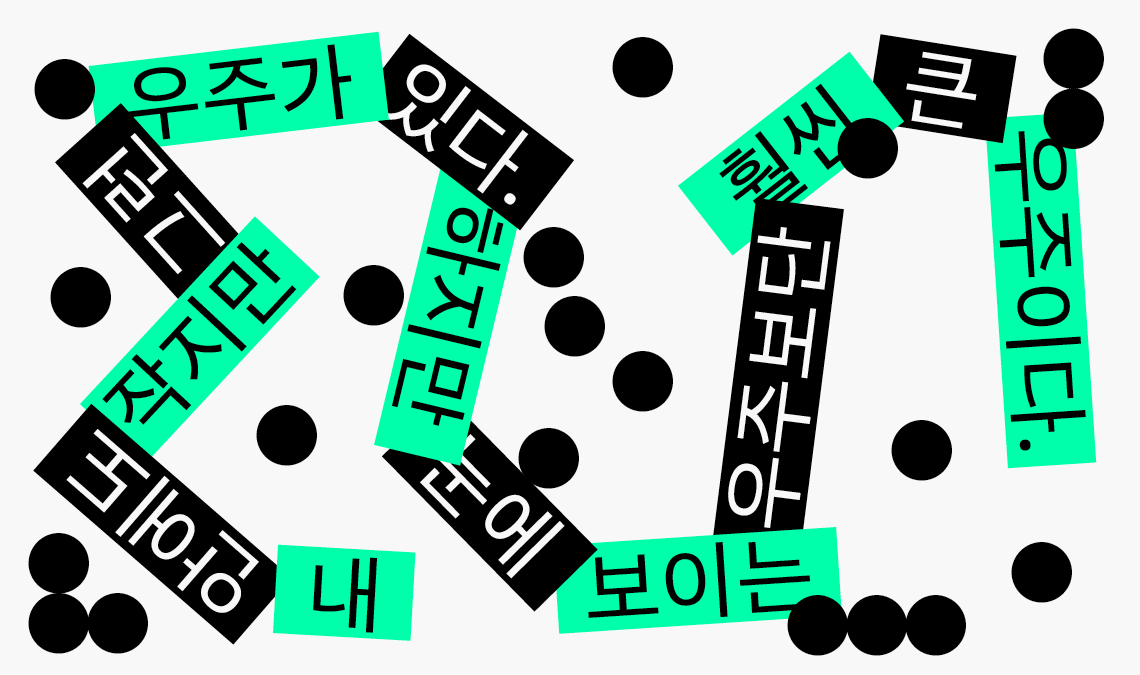
Enjoying the Journey: Interview with Chorong Kim
Adelle Sans Korean is the 12th script released in the Adelle Sans superfamily. In this interview, Chorong Kim discusses what it took to create it and how it’s best used.
TypeTogether has recently released a new contribution to the Adelle Sans family, Adelle Sans Korean. We had the opportunity to talk to the designer behind the project, Chorong Kim of the Korean type foundry Sandoll. We discussed her personal approach to designing Hangul alphabets, the importance of taking cultural context into account when harmonising different scripts, as well as “the sunset-coloured letters in white fluffy clouds”.
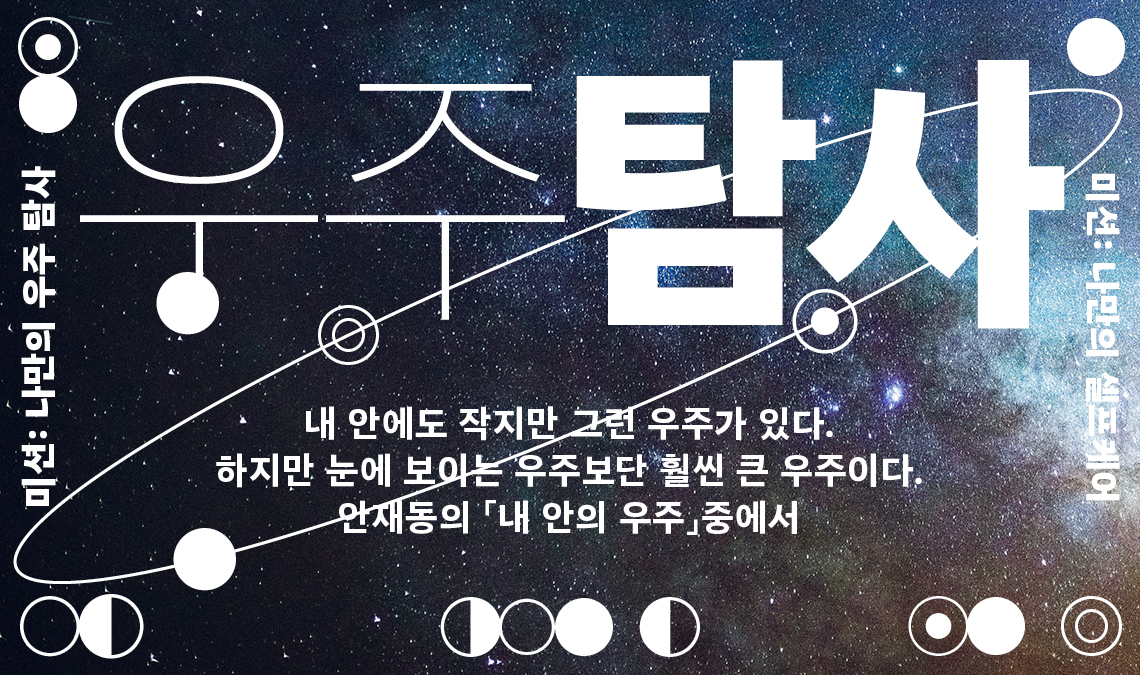
Could you tell us more about your journey to type design?
When I was studying visual design in Korea, I was really bad at typography. One of my professors even said I was not really cut out for it. However, while studying in France in a foreign language other than my native tongue, I became increasingly interested in Latin typography and font design. Learning French was tough for me, but it made me look into Latin type design seriously and my interest increased, thanks to Thomas Huot-Marchand. If I hadn’t met him, I might be doing something else by now.
How did you come to work on Adelle Sans Korean?
At the time the discussion about Adelle Sans Hangul was starting between Sandoll and TypeTogether, we were already developing another Hangul font for our retail library. We thought, since it wasn’t too far along, it could be modified and made into Adelle Sans Korean. It’s a kind of customisation, but rather than customising a font that was already released, we changed one that was in the beginning process of being designed. I was in charge of the project at the time, and since I had met Veronika Burian and José Scaglione before at international conferences, it was a natural fit.
Could you briefly describe the process of designing Hangul to match an existing Latin typeface?
First, we need to study the existing Latin font family. We explore how and why they were created, their design concepts, and their visual characteristics and details as well. Then we establish the most important values from this study in a variety of cultural and social contexts of Hangul. And we decide the process for how we can apply those values to the Hangul font.
In the font creation phase, we’re designing for visual harmony — shape, size, weight, and positioning — to make sure it works with the Latin. However, based solely on visual considerations, users from different scripts may have very different impressions. Therefore, we need to check for both visual and cultural contexts.
Is there any particular detail that, if not harmonised, the whole family would not work together?
While specific details are important, I think the overall impression is the most crucial. For example, physical size and position, stroke thickness and contrast, and spatial homogeneity should be considered first, and only then should expressive details be considered. No matter how well certain small details work together, if the former conditions are not in harmony, I think it is more likely that the result won’t look like a good match.
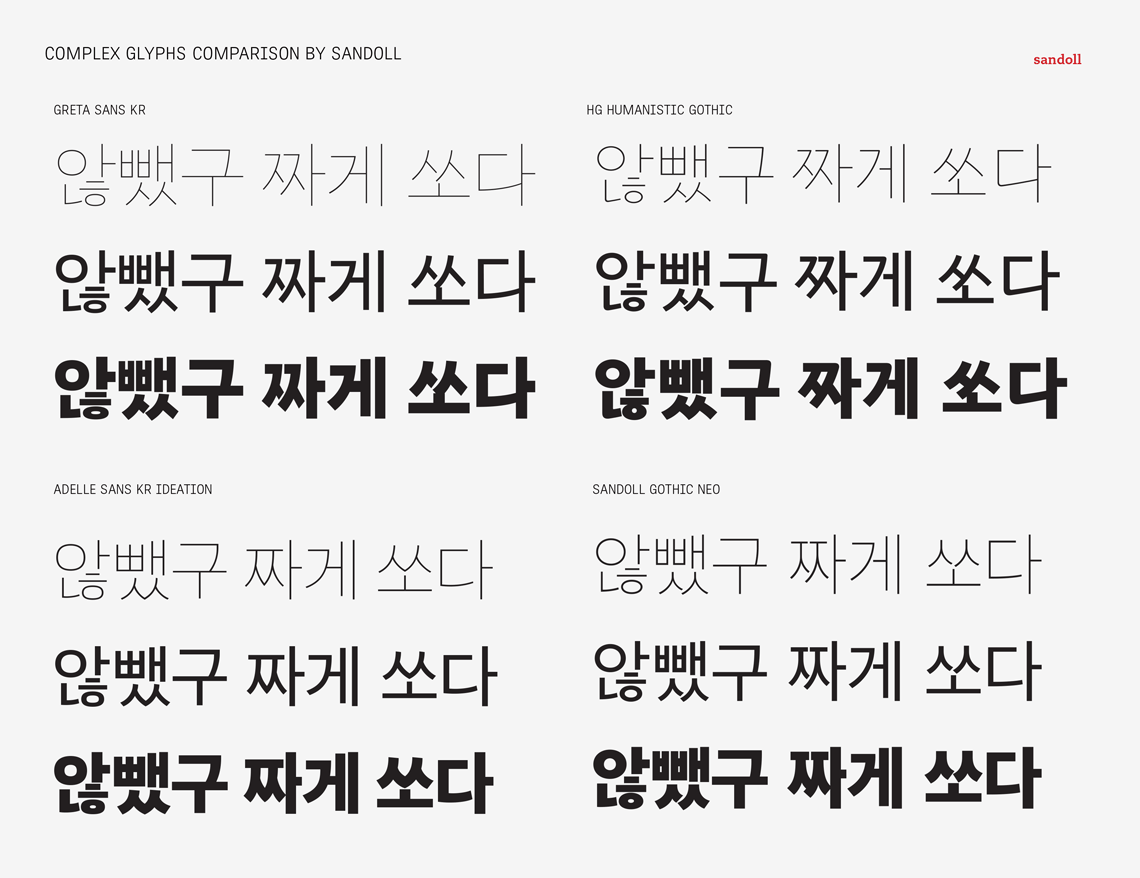
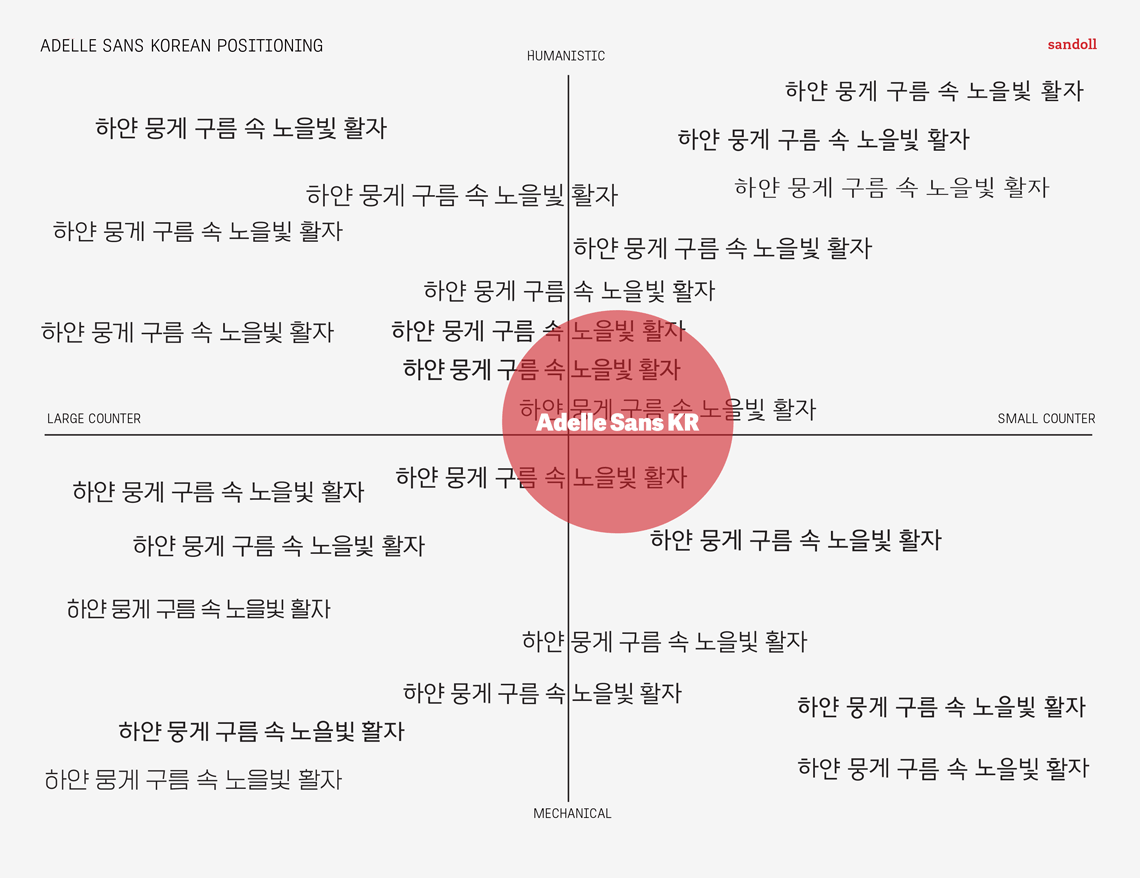
Was the work on Adelle Sans Korean specific in any of these aspects?
While it was important to harmonise the Korean with the features of the original Latin design, the Korean design concept should work for Hangul all on its own. So we first thought about the keywords of Adelle Sans Latin and applied them to the Hangul context. We also created a positioning map to determine how it would work in the Hangul font market. Based on the result, we created Hangul ideation samples and then tuned the visual details to make it work with Latin.
When designing Hangul, do you personally have any character or detail you like to start with? Are there even any general rules specific for Korean type design?
It’s hard to say that there is a such thing that we can call ‘standard’ in the industry, but Sandoll has a set of letters we use to start our work. They are ‘하얀 뭉게 구름 속 노을빛 활자’ which means ‘the sunset-coloured letters in white fluffy clouds’. It has all six combination styles of the Hangul letters, a good mix of 2-3 letter words, and general spacing to give the basic feel of the typeface. With these letters, we can define the skeleton of letters and the combination rule. This string also contains letters with several basic graphemes, so it helps when checking some design details as well.
What use is Adelle Sans Korean meant for? Where does it fit the best?
Overall, Adelle Sans Korean maintains the readability and impression of a Hangul Gothic font that people generally use for the text, so it’s familiar to the native reader. At the same time, the unobtrusive and subtle features reflected in certain characters create a different atmosphere from the traditional ones. The structure of Siot(ㅅ), Jiut(ㅈ), and Chiut(ㅊ) especially reflects the writing order but the overall shape is very similar to the symmetric styled grapheme. And the bottom horizontal curved bar has a soft and loose curve. This goes well with the curves of Siot(ㅅ), Jiut(ㅈ), Chiut(ㅊ). Therefore, Adelle Sans Korean can be used any place where the general Hangul Gothic is used. It would be a good choice especially when you want to use a Hangul Gothic that’s a bit more unexpected in long texts.
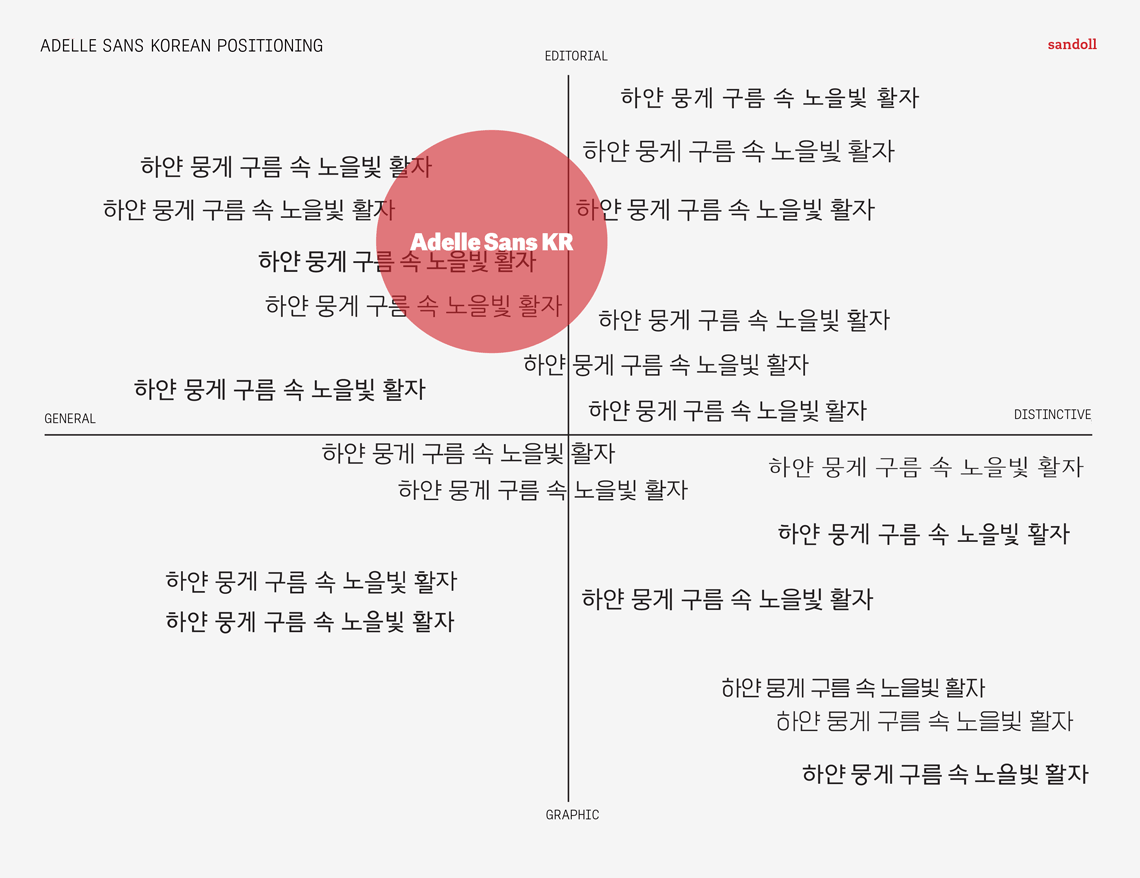
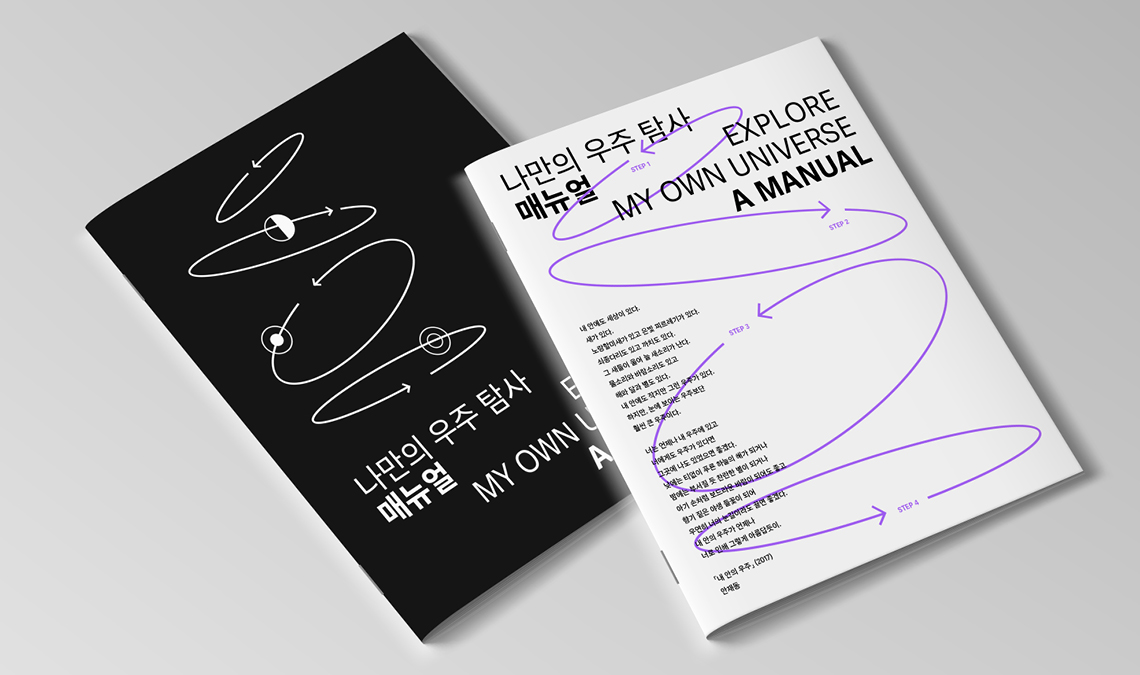
*Chorong Kim is a type designer who makes a living by designing, thinking, and talking about fonts and their environment. She studied graphic design in Korea and type design in France after working as a font designer at Cadson Demak in Bangkok. She currently works at Sandoll, participating in and leading several international brand font projects and collaborations. Chorong teaches at the Hangul Typography School, lectures in various institutes, and also mentors for the Alphabettes mentorship program.